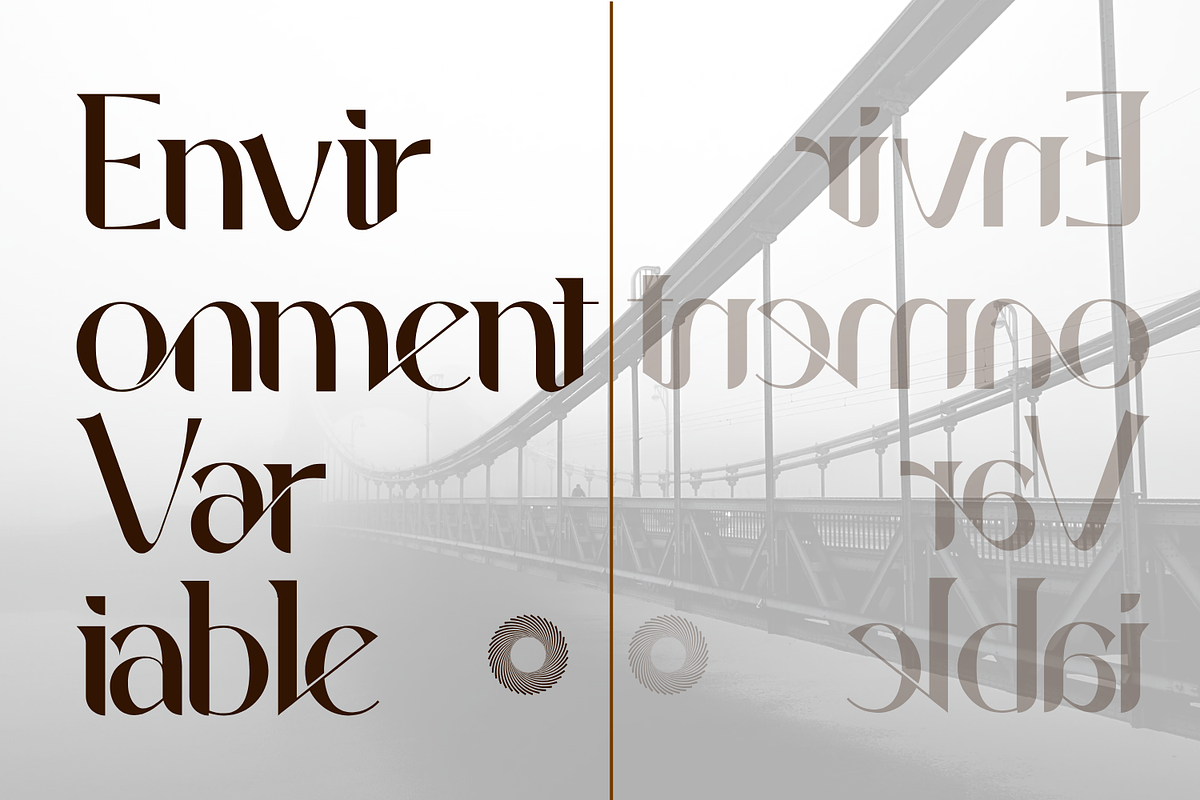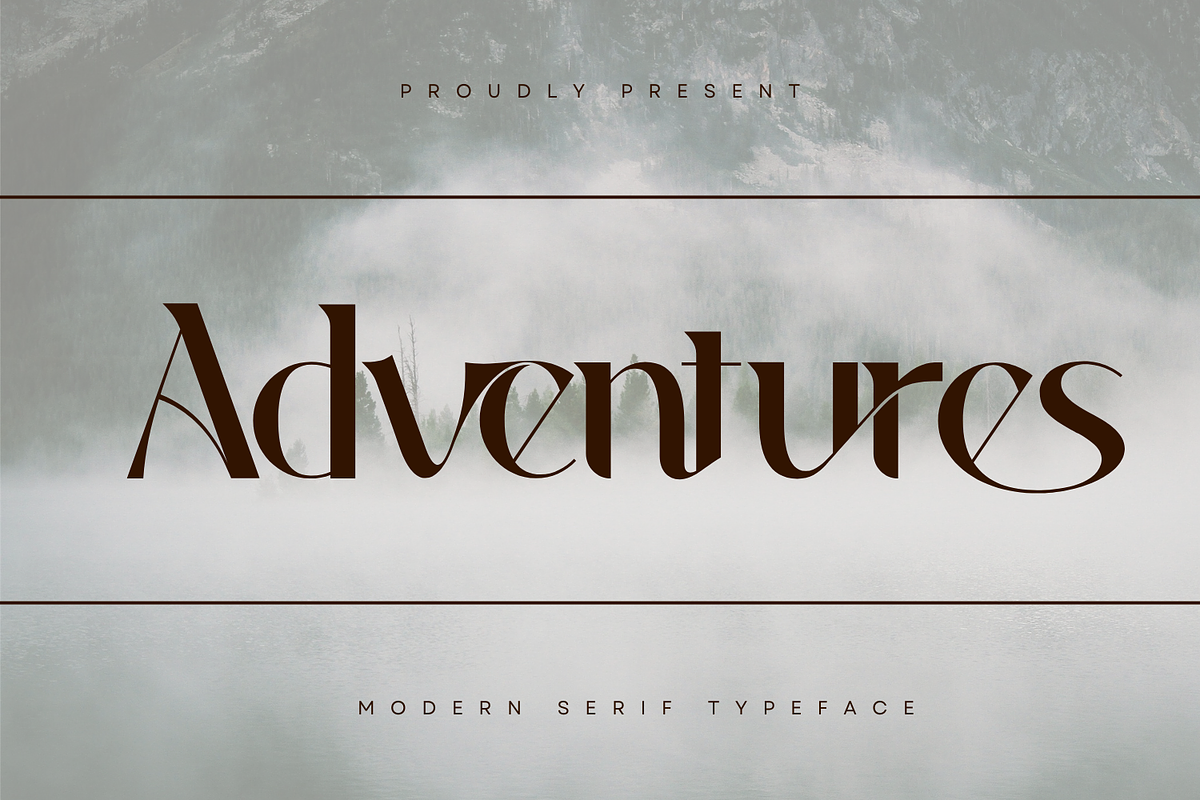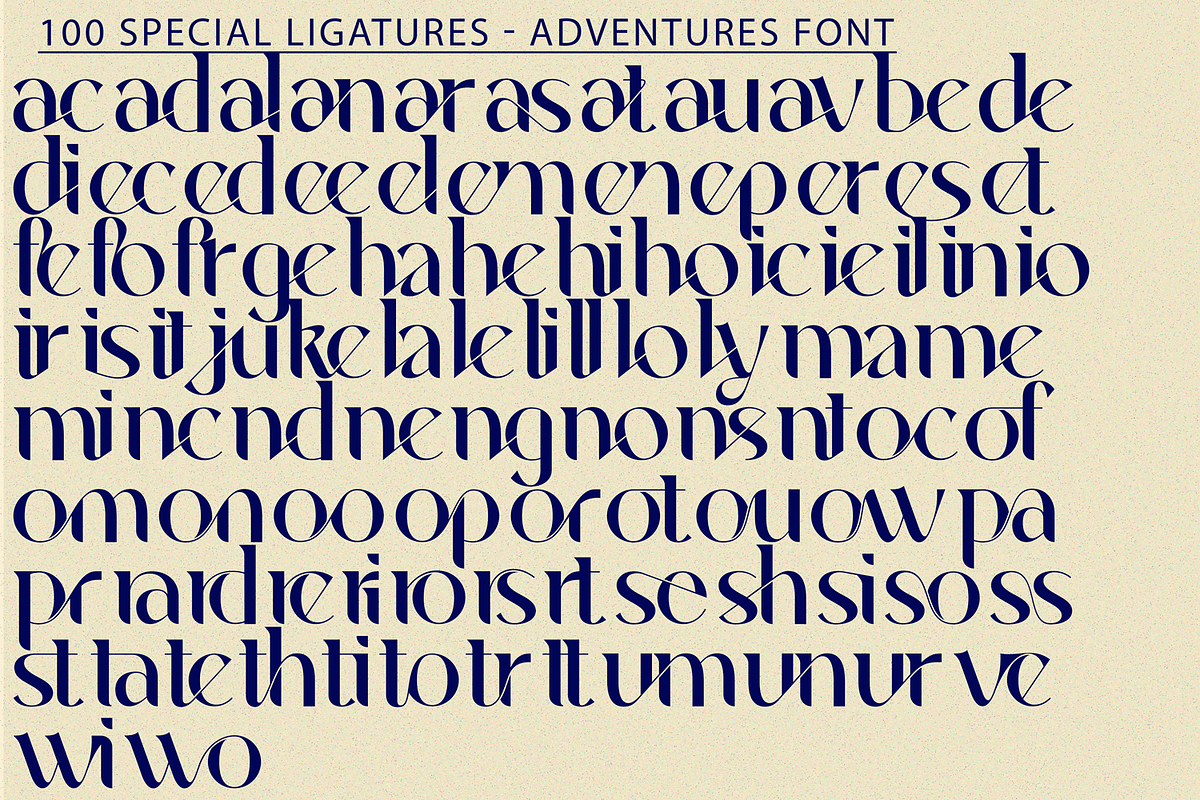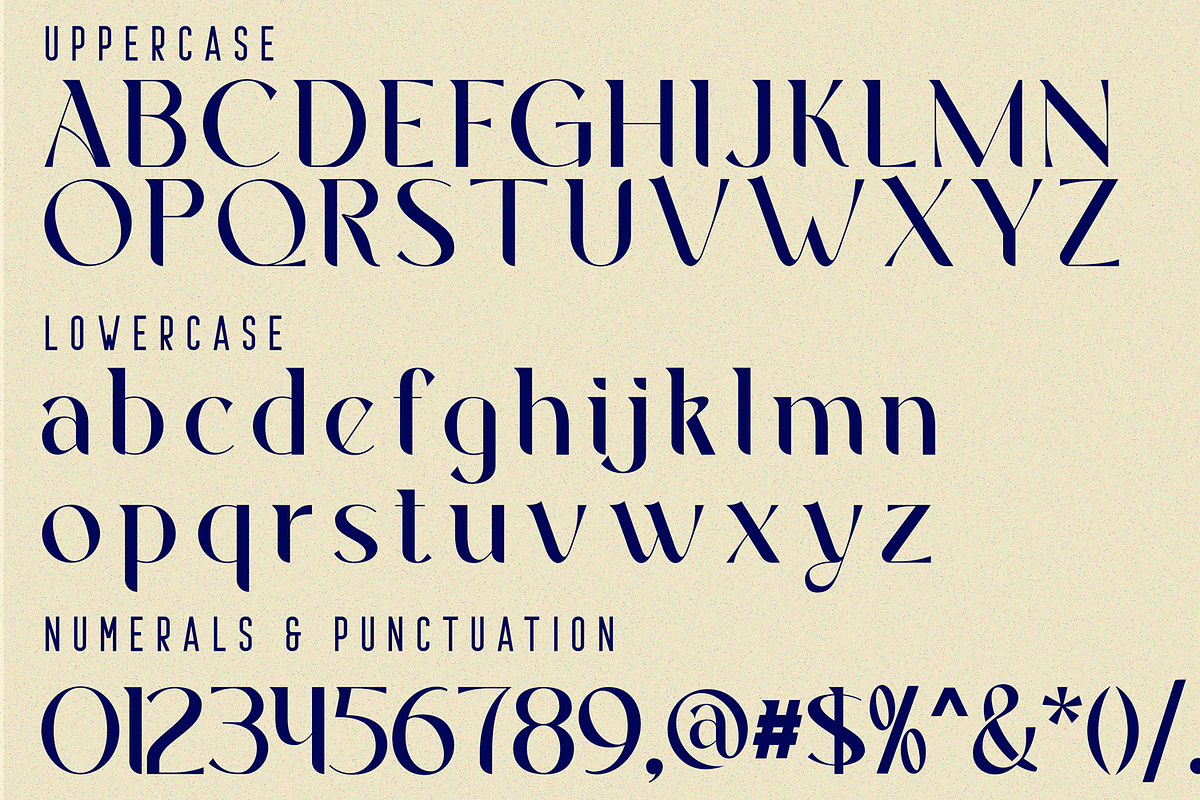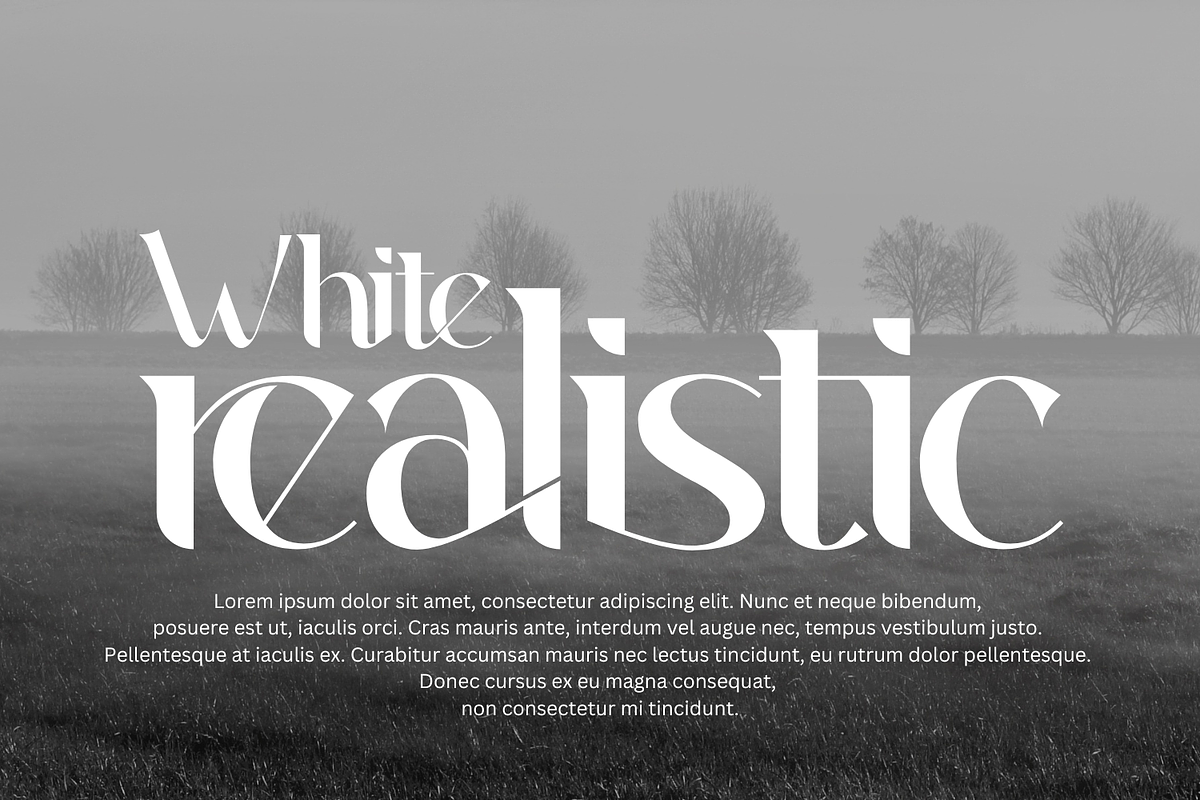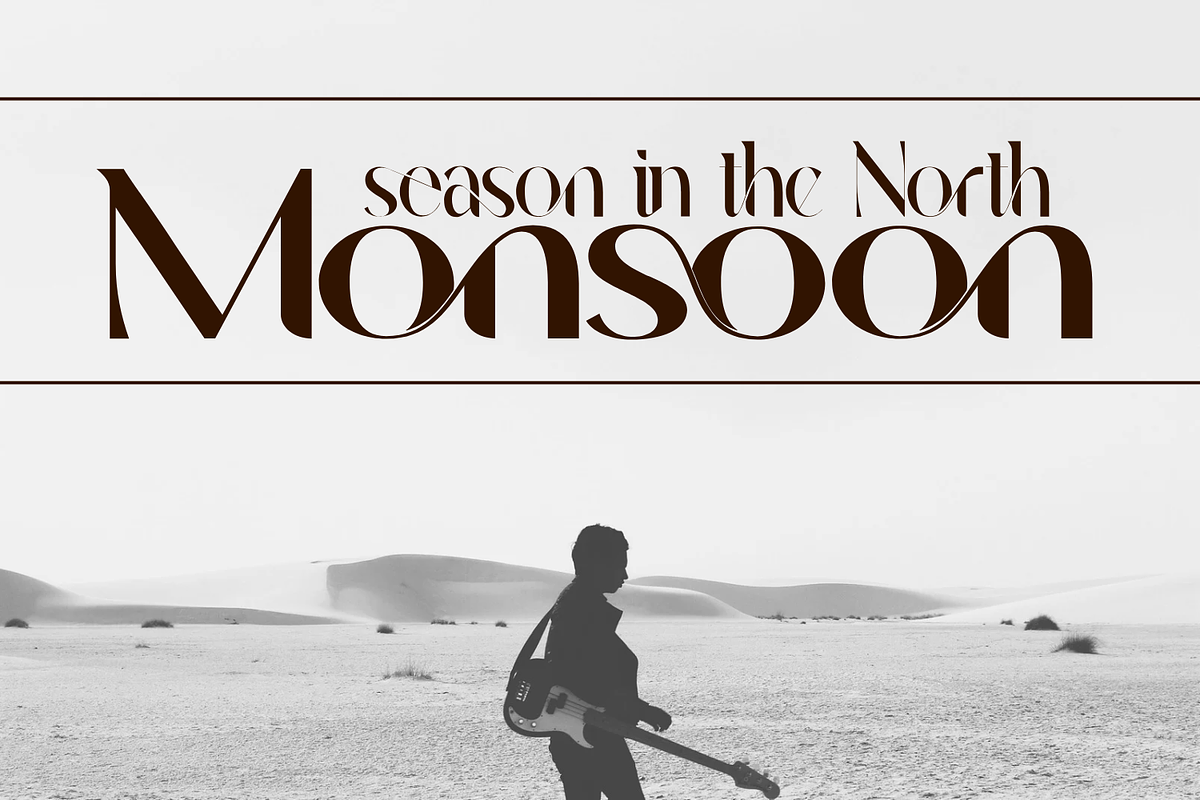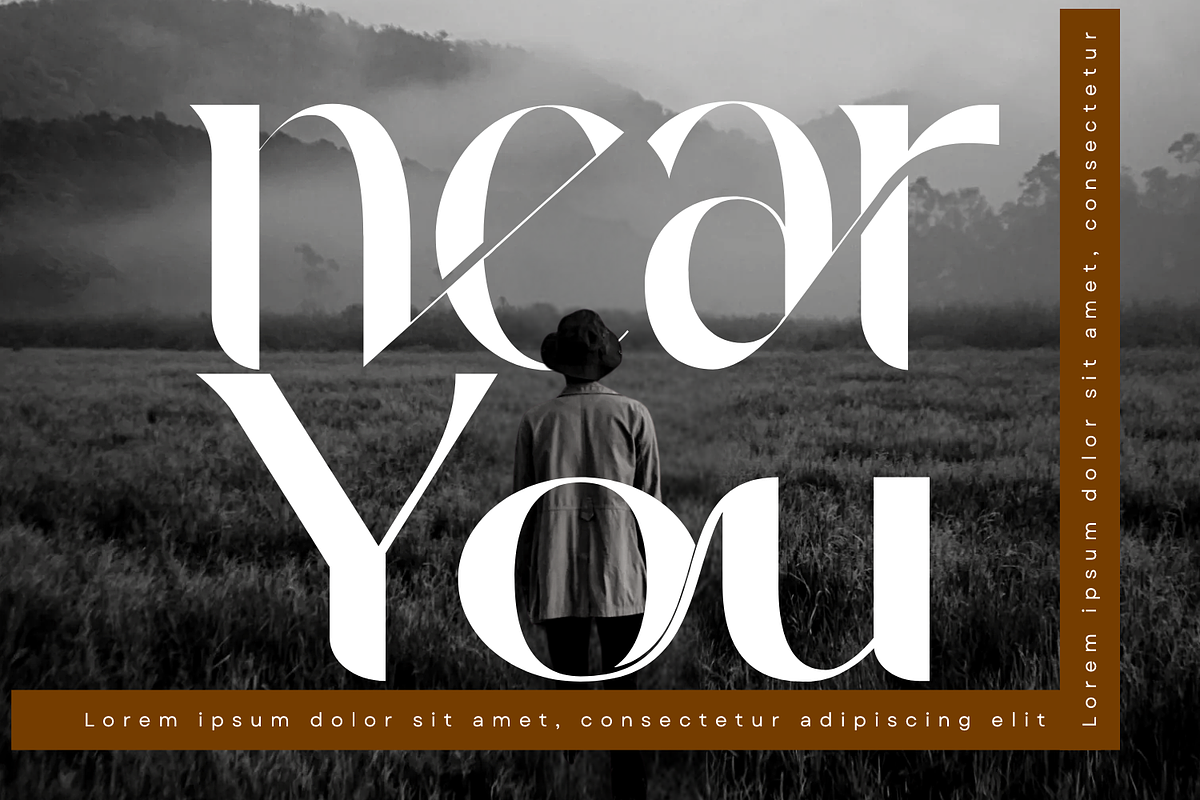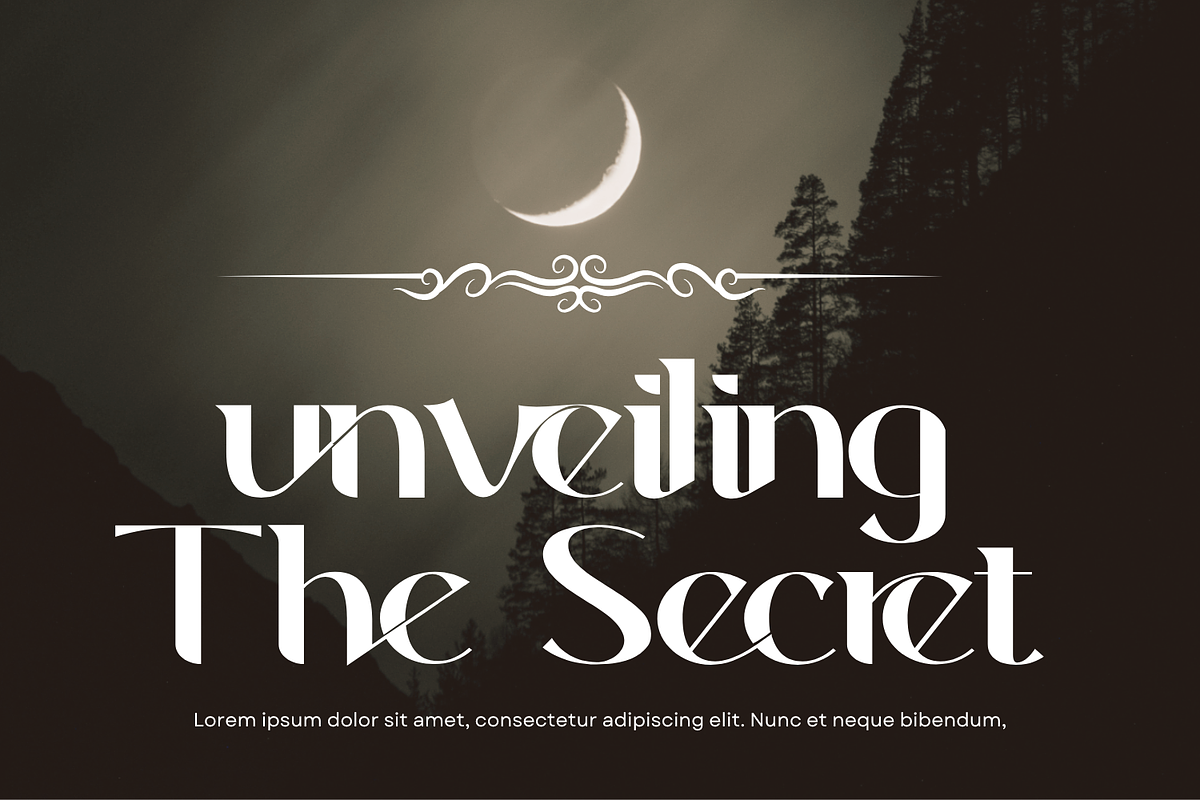
Adventures | Modern Elegant Font
Adventures | Modern Elegant Font is an elegant modern typeface. The contrast is beautiful and makes it very pure. Give your text a little elegance and sweetness with some character ligatures characters in this font. It also comes with ligatures, so you can customize it however you like and add extra aesthetic value to your design. Perfect for logos, magazines, product design, social media, business branding, editorials, fashion, packaging, and luxury brands.
Adventures was built with OpenType features and includes 100 ligatures, alternate, numbers, punctuation, and it also supports other languages.
ac ad al an ar as at au av be ca ce ch co ct de di ea ec ed ee el em en ep er es et fe fo fr ge ha he hi ho ie ic il in io ir is it ju ke la le li ll lo ly ma me mi nc nd ne ng no nt ns oc of om on oo op or ot ou ow pa pr ra rd re ri ro rs rt se sh si so ss st ta te th ti to tr tt um un ur ve wi wo
This font also included full set of:
- Special Ligatures